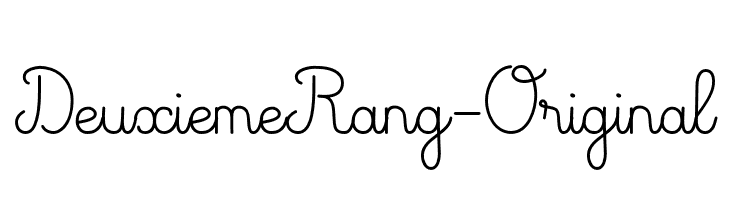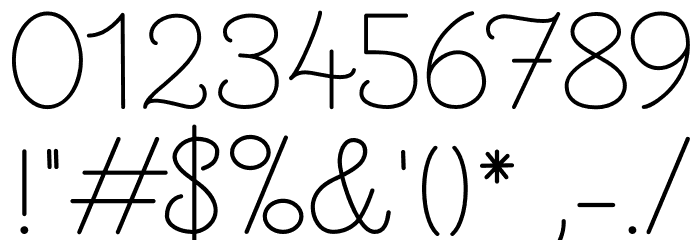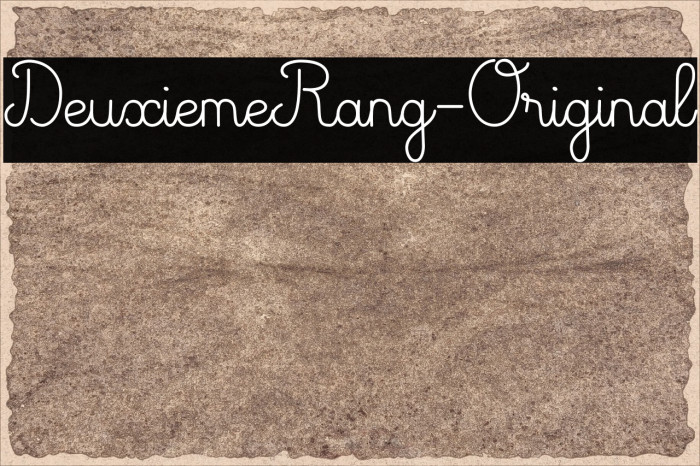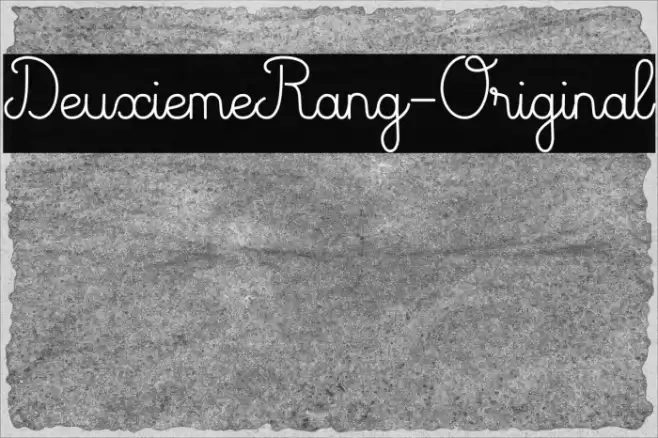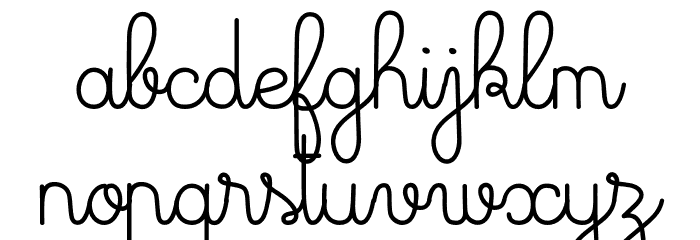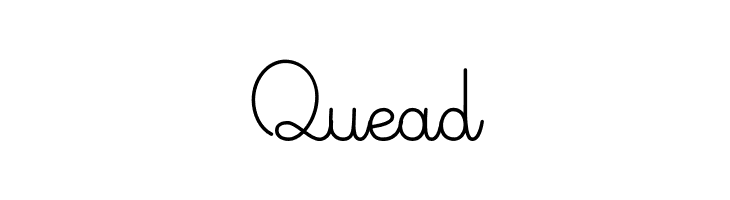
DeuxiemeRang-Original Font
DeuxiemeRang-Original Description
This font features a playful and whimsical script style, characterized by its continuous, flowing lines that mimic cursive handwriting. The uppercase letters are elegantly looped, while the lowercase letters maintain a consistent, rounded form. Numbers and special characters are crafted with the same fluidity, ensuring a cohesive look across all text. The font's design is both approachable and stylish, making it suitable for a variety of creative applications. Its unique charm lies in the balance between readability and decorative flair, offering a modern twist on traditional script fonts.
| Use Case | Logos, Invitations, Greeting Cards |
| Proposed Projects | Ideal for wedding invitations, greeting cards, personal branding, and creative projects that require a touch of elegance and personality. |